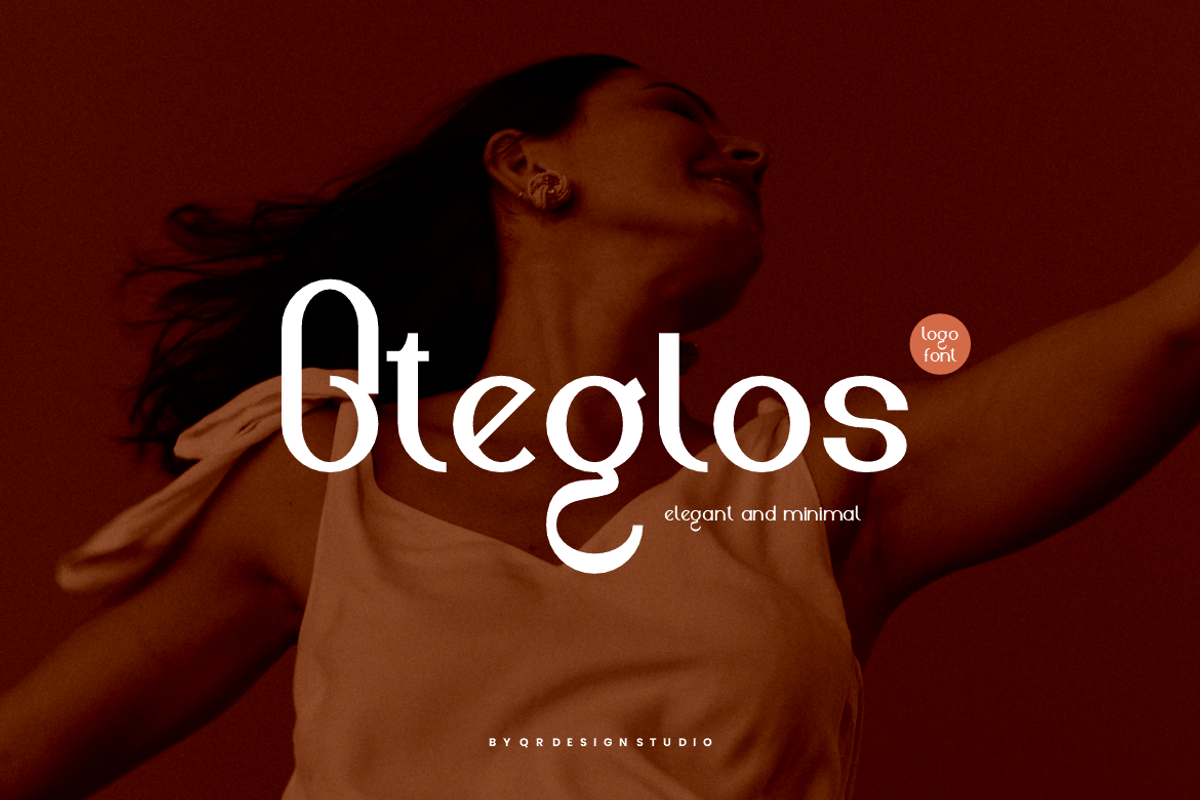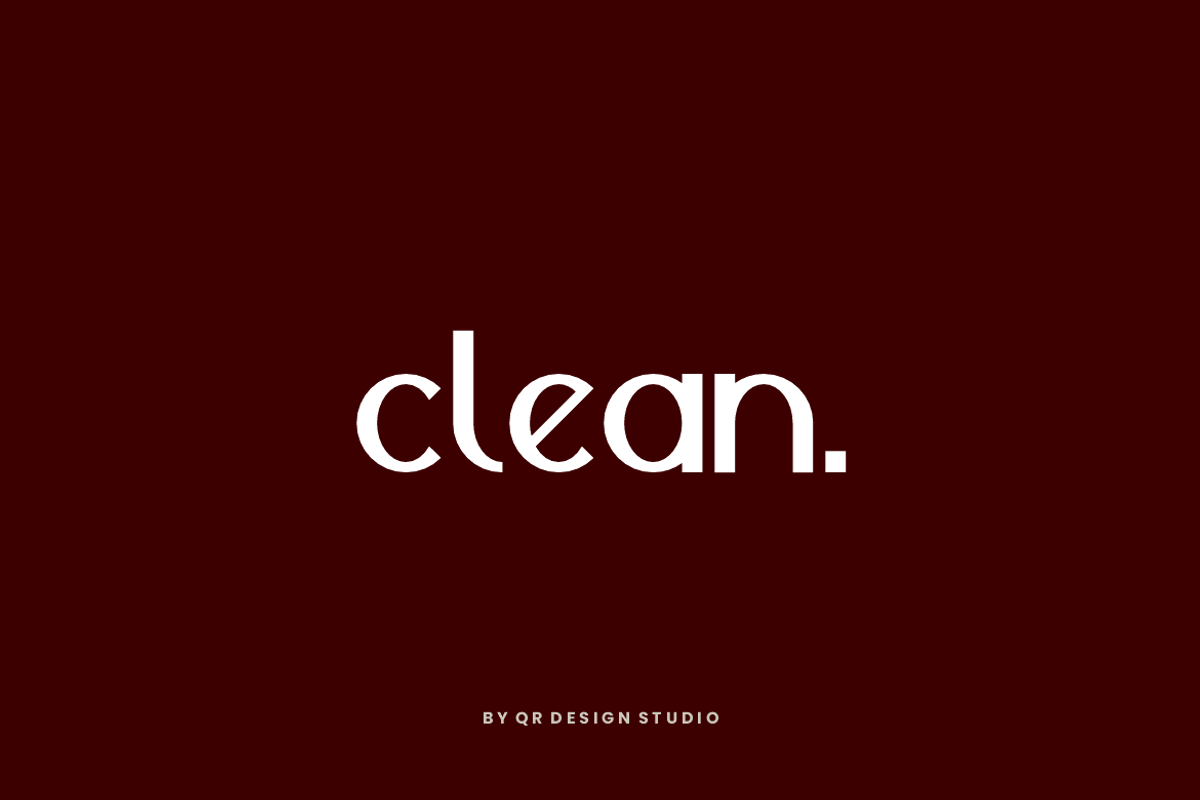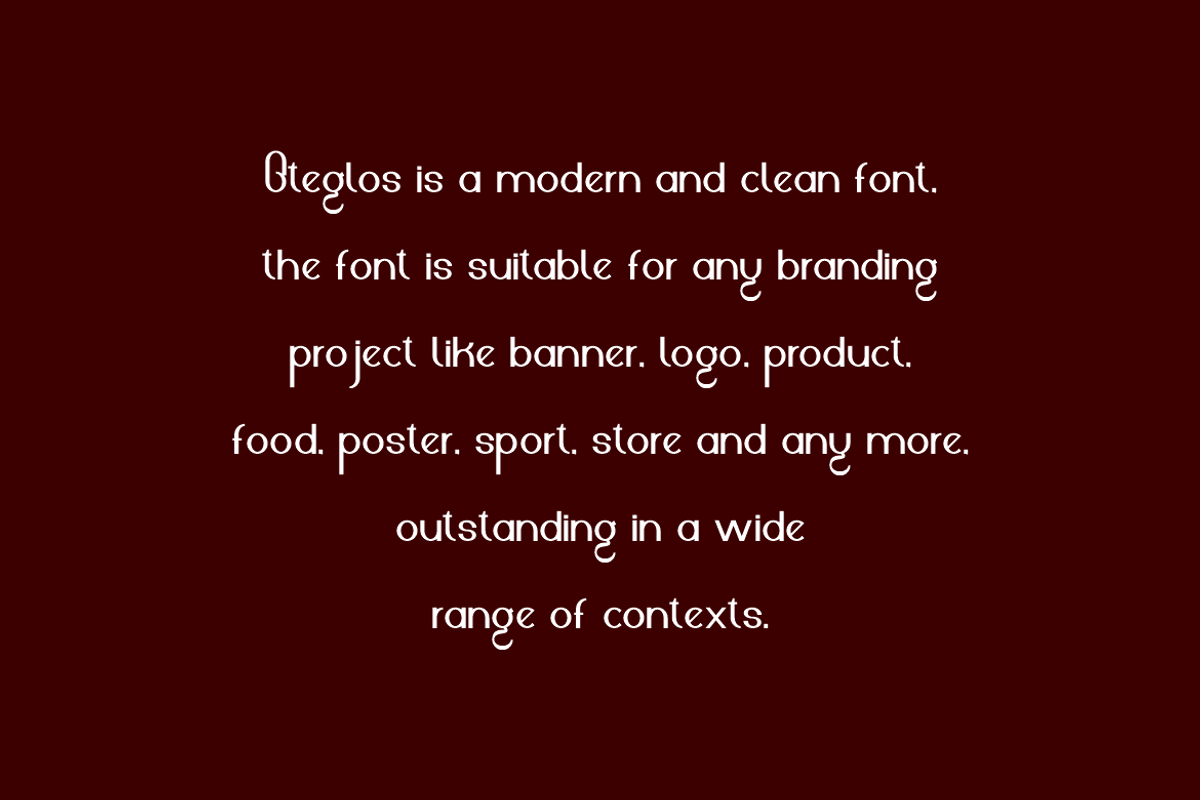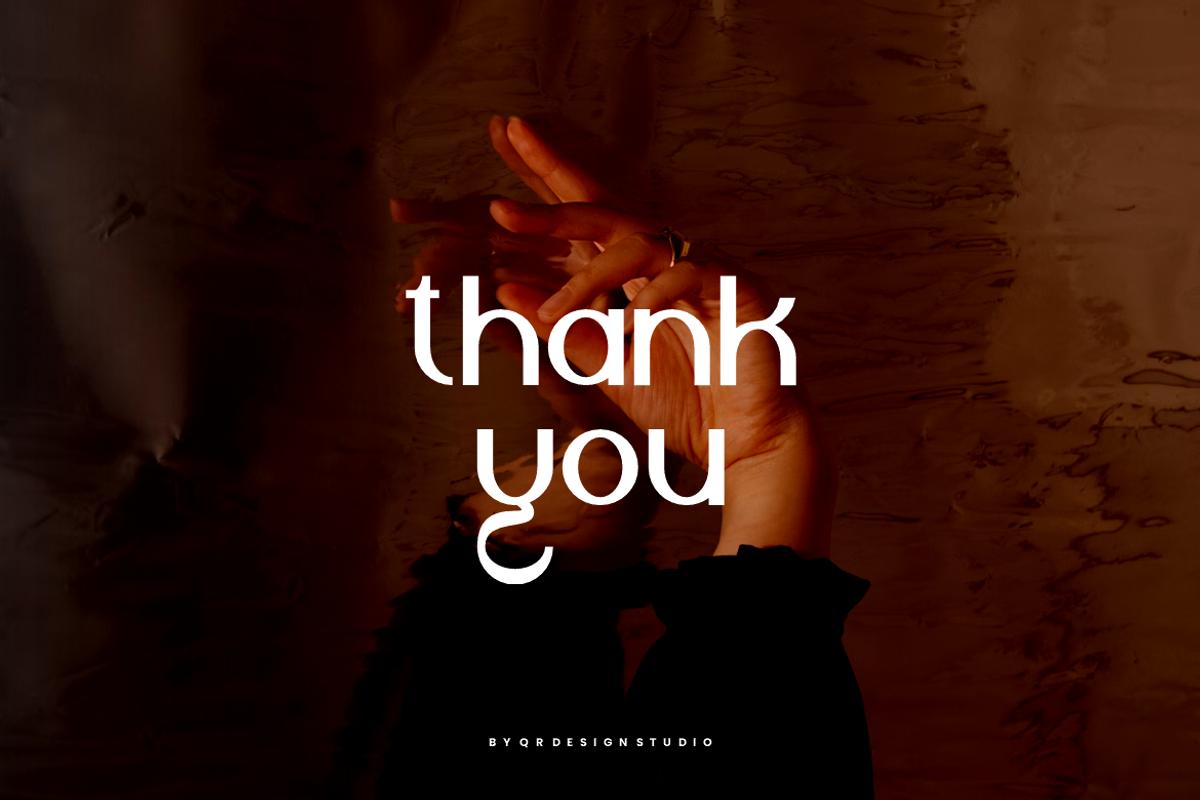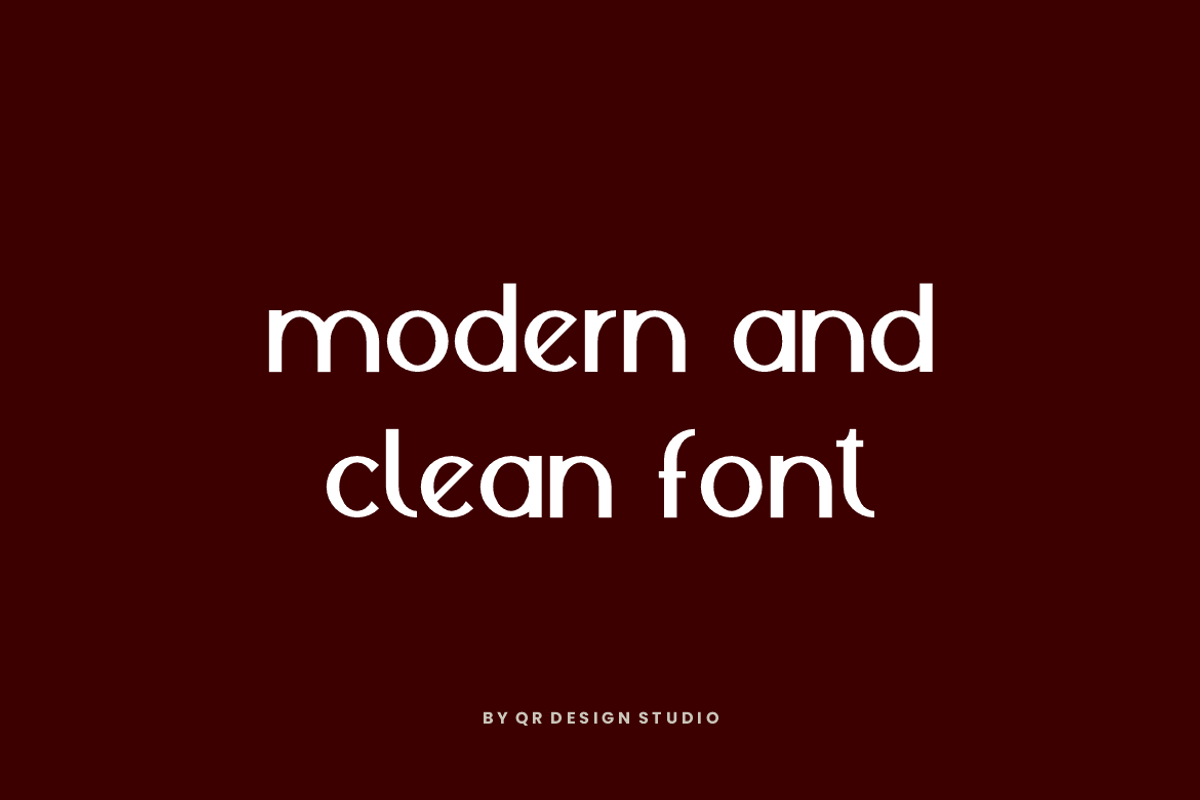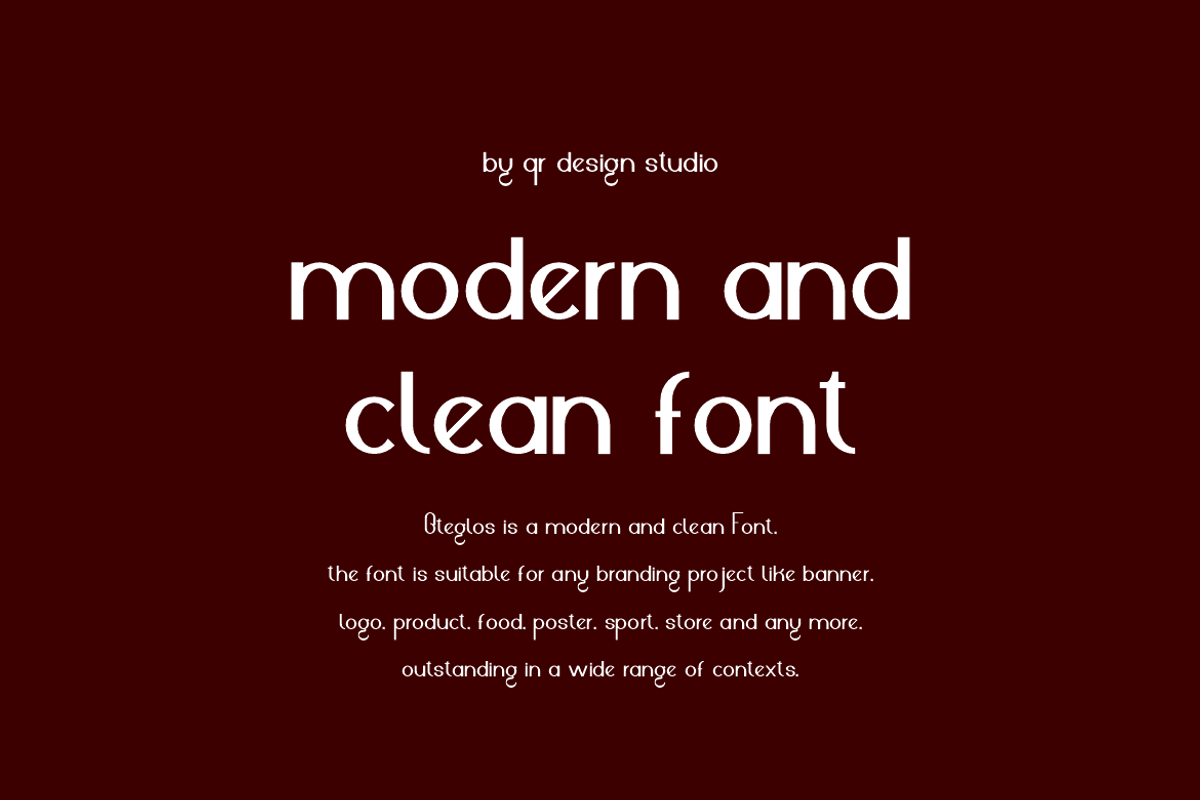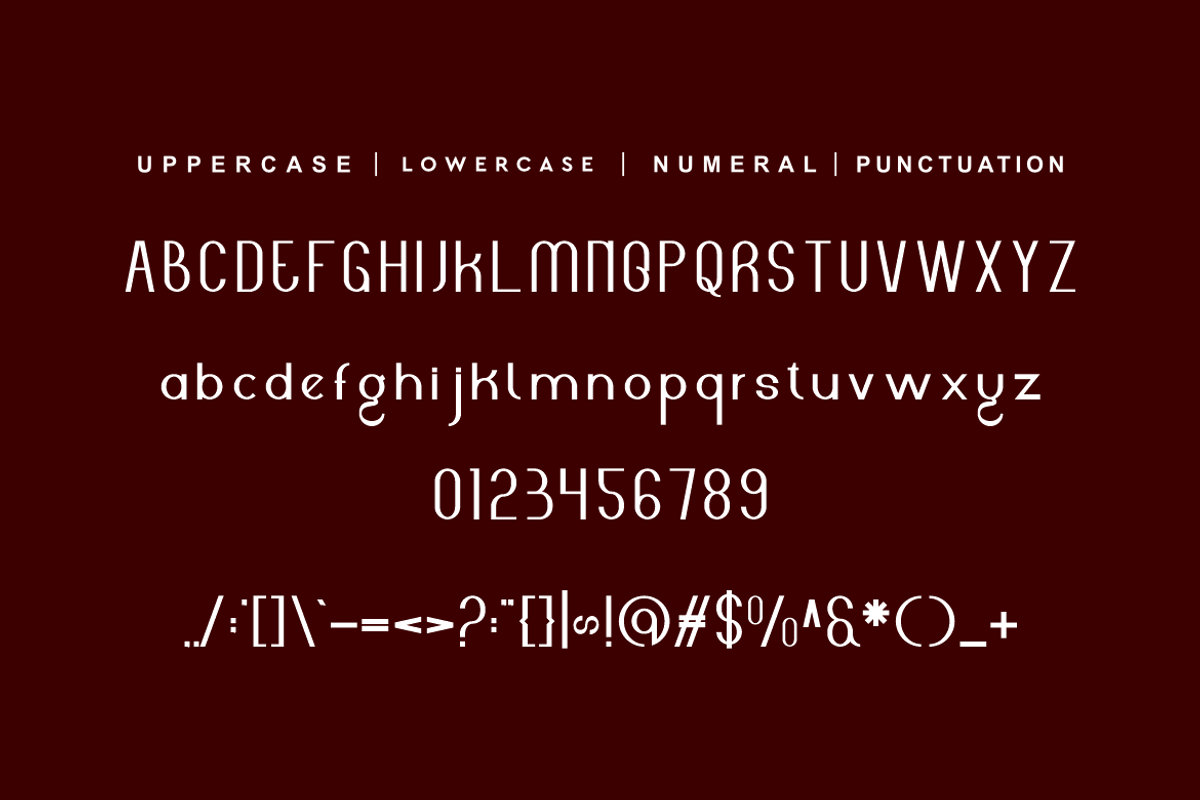
Oteglos - Elegant & Minimal Font
Oteglos Font is a sans serif and authentic display font. The font is suitable for any branding project like poster, logo, sport, and many more. Outstanding in a wide range of contexts.